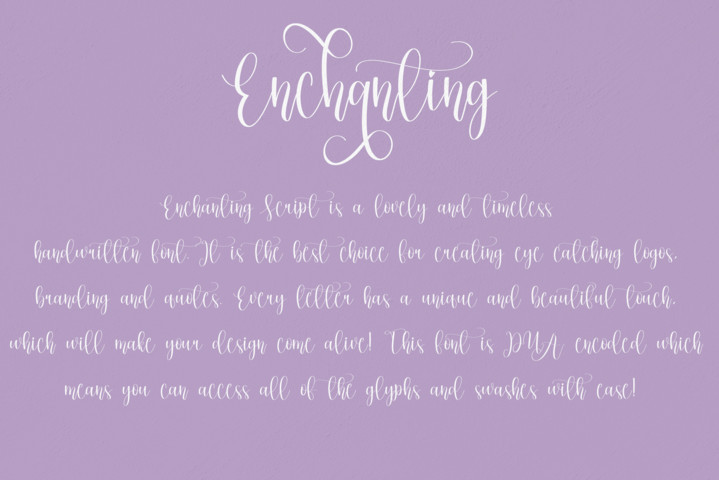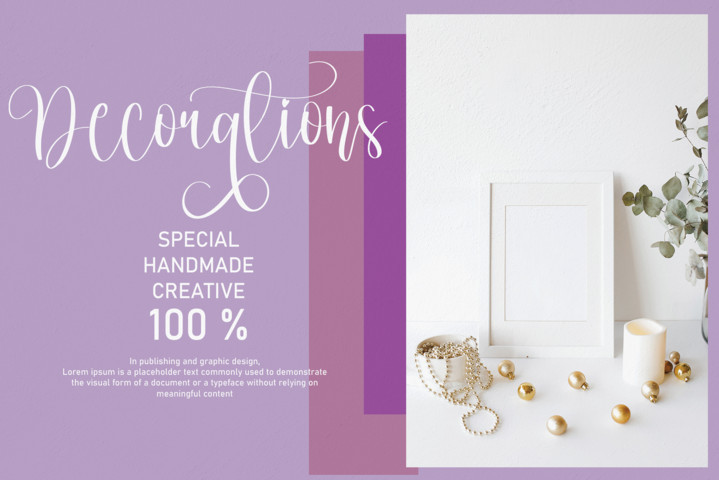
Enchanting Font
Enchanting Script Font
It’s a modern typeface with unique glyphs. This font is perfect for wall displays, wedding invitations, social media post logos, advertisements, product packaging, product designs, labels, photography, watermarks, invitations, stationery, and any project that requires taste handwriting.